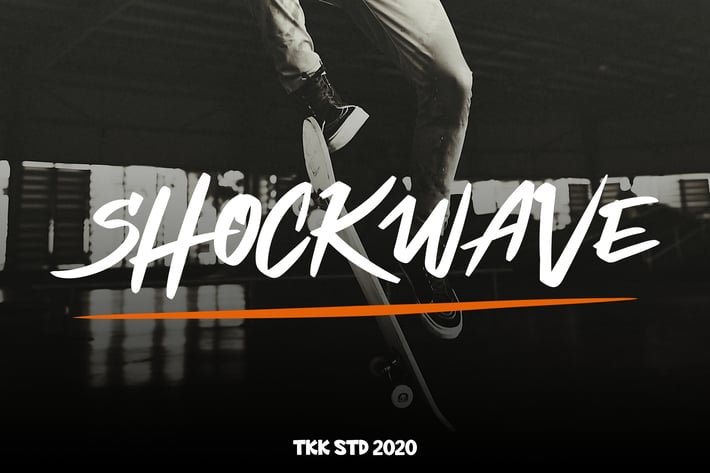
Shockwave - Graffiti Font
Shockwave is a freeform graffiti brush typeface crafted to capture the raw energy of the streets and the momentum of action sports. With fast-flowing brushstrokes, sharp terminals, and expressive rhythm, it channels urban rebellion and street authenticity in every letter. Its bold vibe and slanted momentum bring visual velocity—great for youth-oriented designs and content that needs to move.
Designed for creators targeting skate culture, music events, or sports branding, Shockwave’s graffiti marker structure and organic letterforms offer an edgy, rebellious feel with built-in kinetic power. Think painted walls, tour posters, skate edits, or hype social media drops—it’s all about energy and attitude.
From board decks to billboard drops, Shockwave is made for motion. Its strong street-style aesthetic and fast brush energy make it ideal for poster design, sportswear branding, YouTube titles, or edgy event promotion. Perfect for visual campaigns aimed at teens, young adults, or alternative creative spaces, this font delivers a hit of adrenaline to anything it touches—no filters, just flair.
Key Features :
Bold Graffiti Attitude
- Energetic hand-drawn brush script
- Natural stroke variations for raw authenticity
- Tilted angles and wild baseline flow for street impact
Youth-Centric Appeal
- Made for skateboards, stickers, urban tees, and social graphics
- Perfect for music flyers, podcast covers, thumbnails, and club nights
- Great visibility in fast-paced branding and high-contrast displays